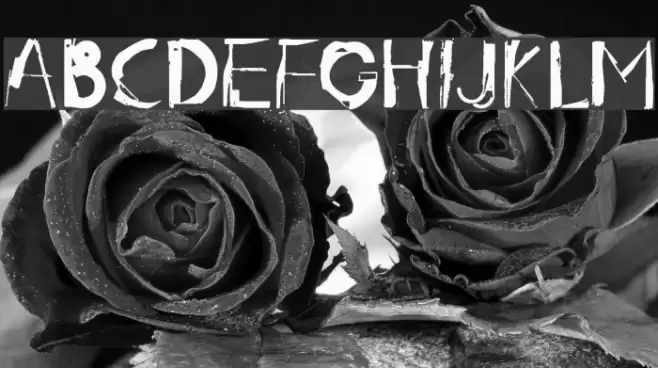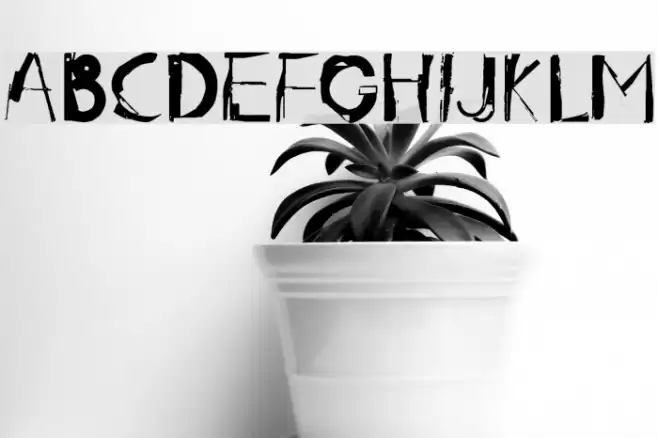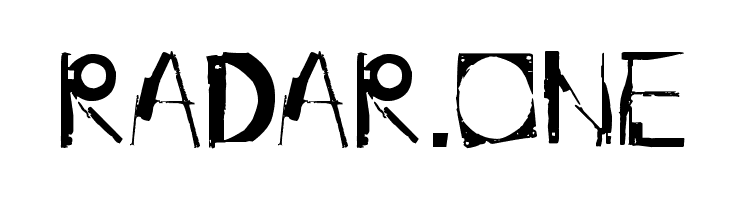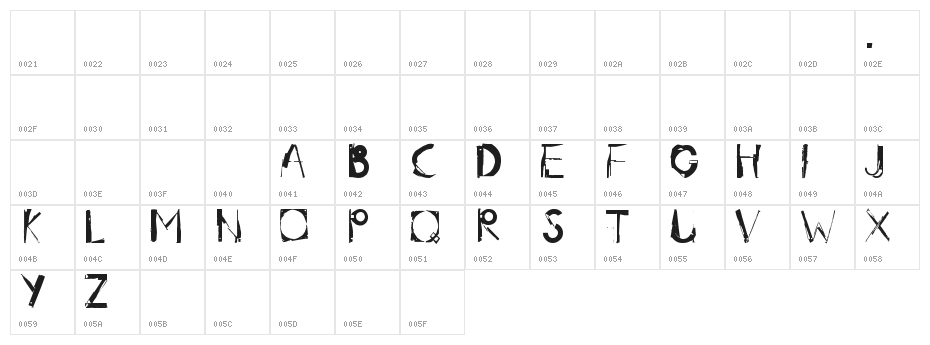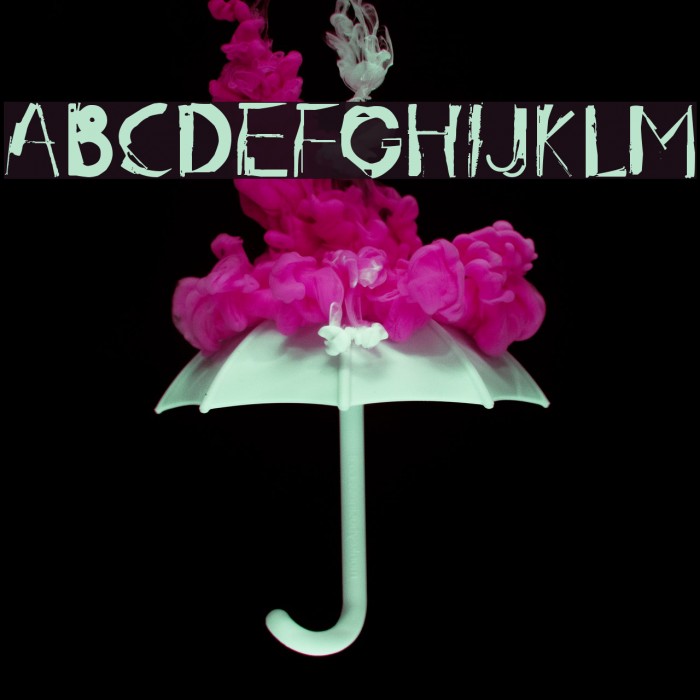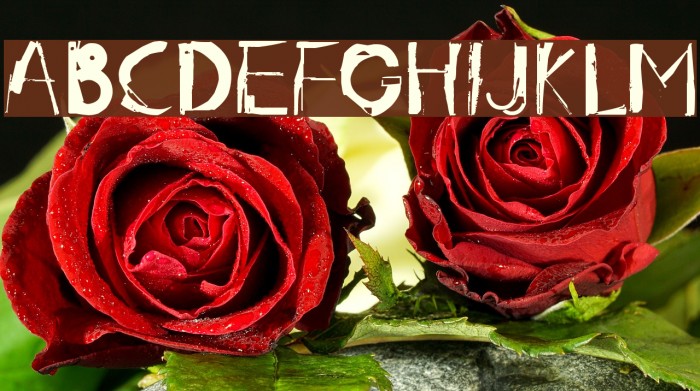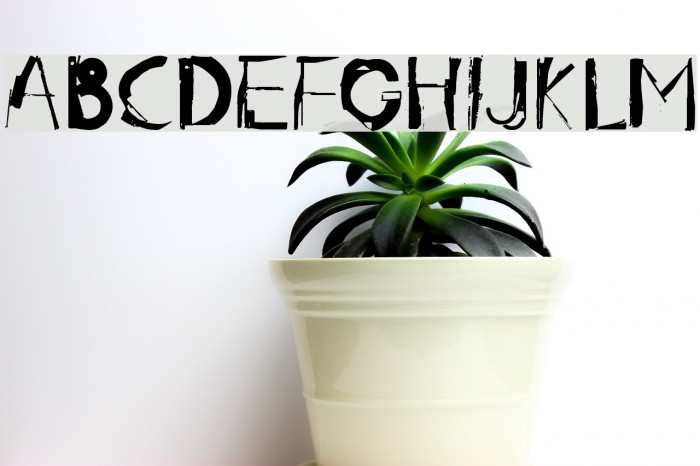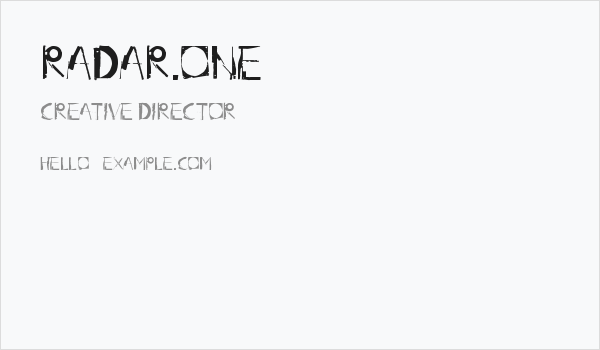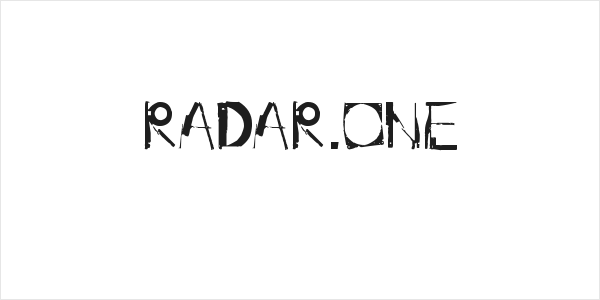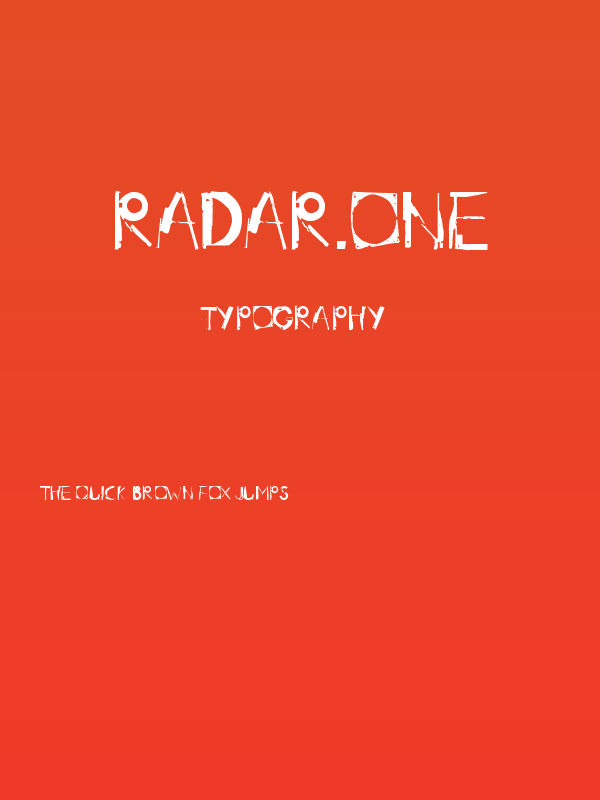
radar.one Font
radar.one Description
This font features a distressed and grungy aesthetic, with each letter exhibiting a unique, worn texture that gives it a raw and edgy appearance. The characters are bold and slightly irregular, contributing to a sense of movement and dynamism. The uppercase letters are particularly striking, with sharp angles and varying line thicknesses that create a sense of urgency and intensity. The font's overall style is reminiscent of urban street art or graffiti, making it ideal for projects that require a bold, unconventional look. The spacing between characters is relatively tight, enhancing the compact and impactful nature of the text.
A bold, distressed font with a grungy, urban aesthetic from Crazy fonts.
- Proposed Projects: Ideal for album covers, streetwear branding, posters, and edgy graphic design projects.
- Character Spacing: Tight
- Overall Style: Grunge, Urban, Edgy